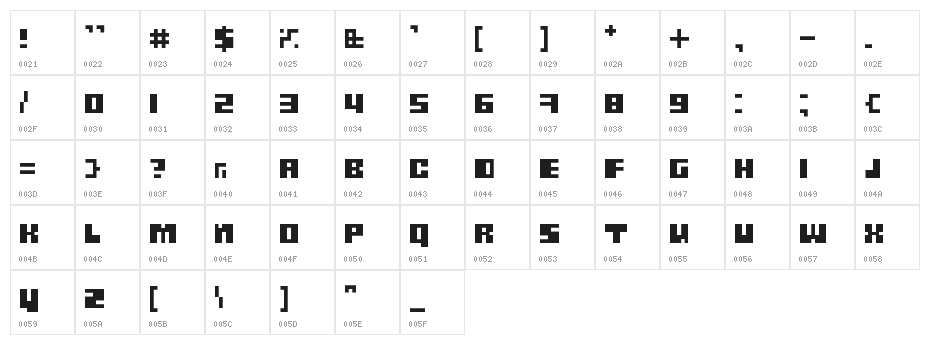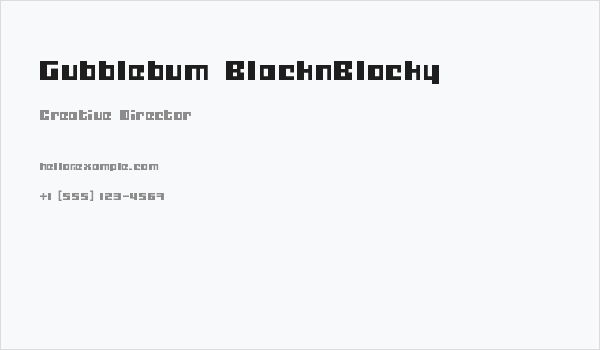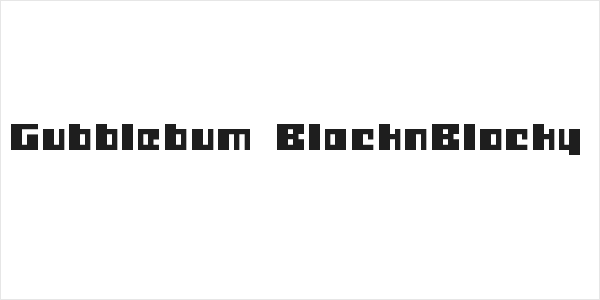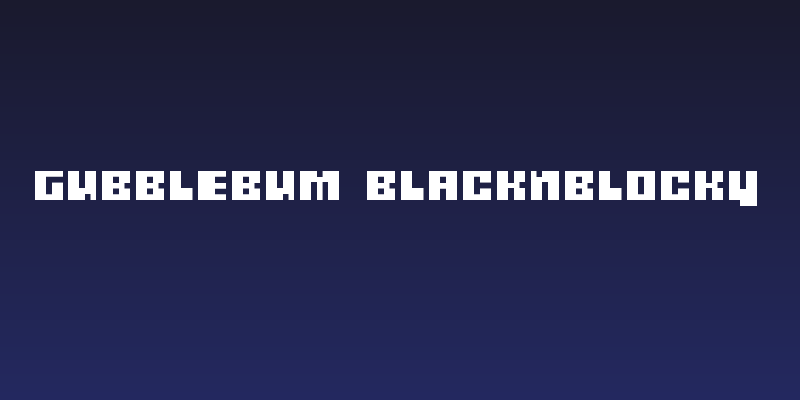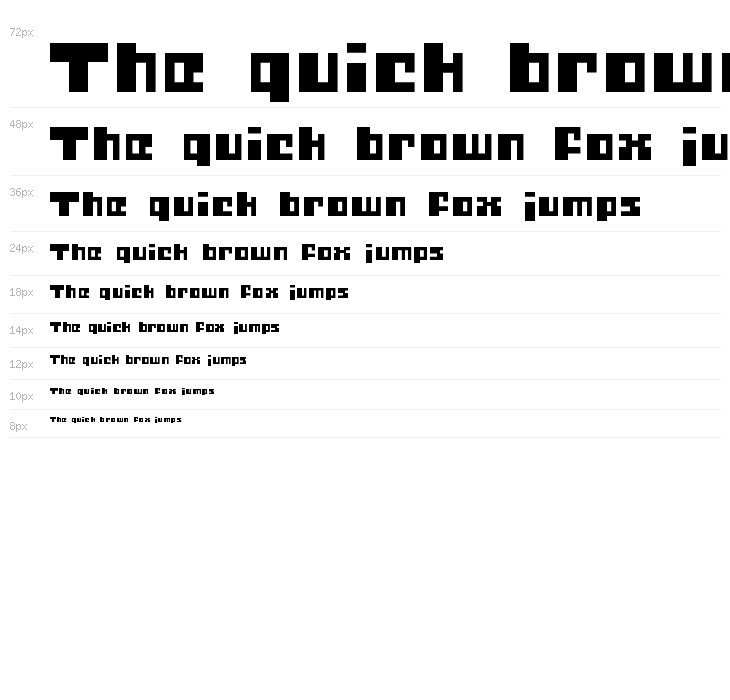
Gubblebum BlacknBlocky Font
Gubblebum BlacknBlocky Description
This font features a bold, blocky design with a distinctly geometric appearance. Each character is constructed with sharp, angular lines and uniform thickness, giving it a strong and impactful presence. The uppercase and lowercase letters maintain a consistent height, contributing to a cohesive look. The numerals and special characters follow the same design principles, ensuring uniformity across all glyphs. This font's style is reminiscent of retro digital displays, making it ideal for projects that require a modern yet nostalgic feel.
| Proposed Projects | Ideal for video game graphics, tech-themed posters, or branding that requires a modern, digital aesthetic. |